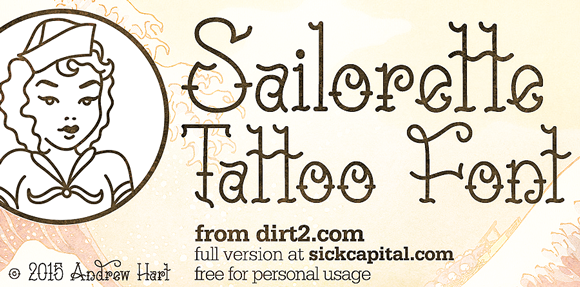
This is a vintage tattoo font mixed with that Sailor Jerry and Ed Hardy vibe as well as my own personal aesthetic. I hope you find it useful - I wanted to publish something smoother and more original than my 'Dead Hardy' font and I hope you guys like this. Please let me know if you have any questions or come across any issues in a comment or by contacting at SickCapital.com/contact - PURCHASE THE FULL FONT FILE + EXTRAS AT SICKCAPITAL.COM - |